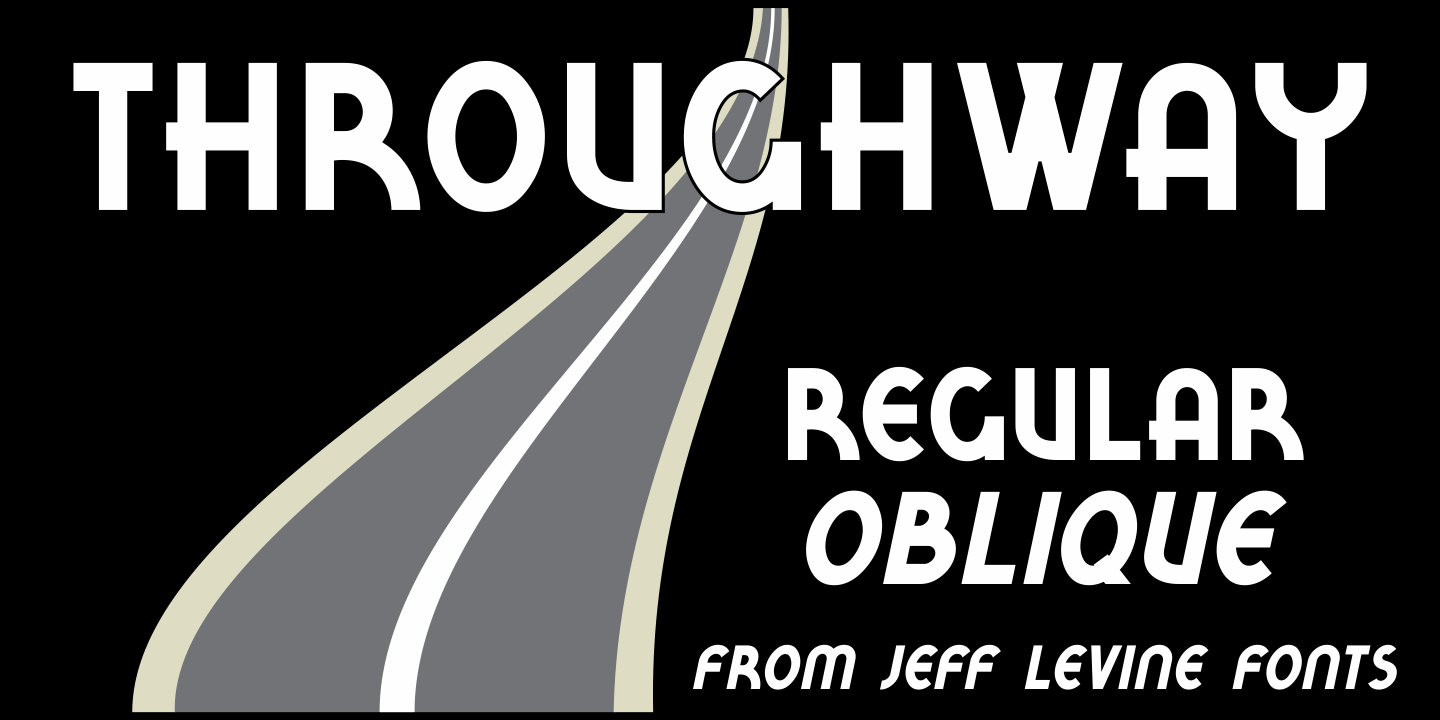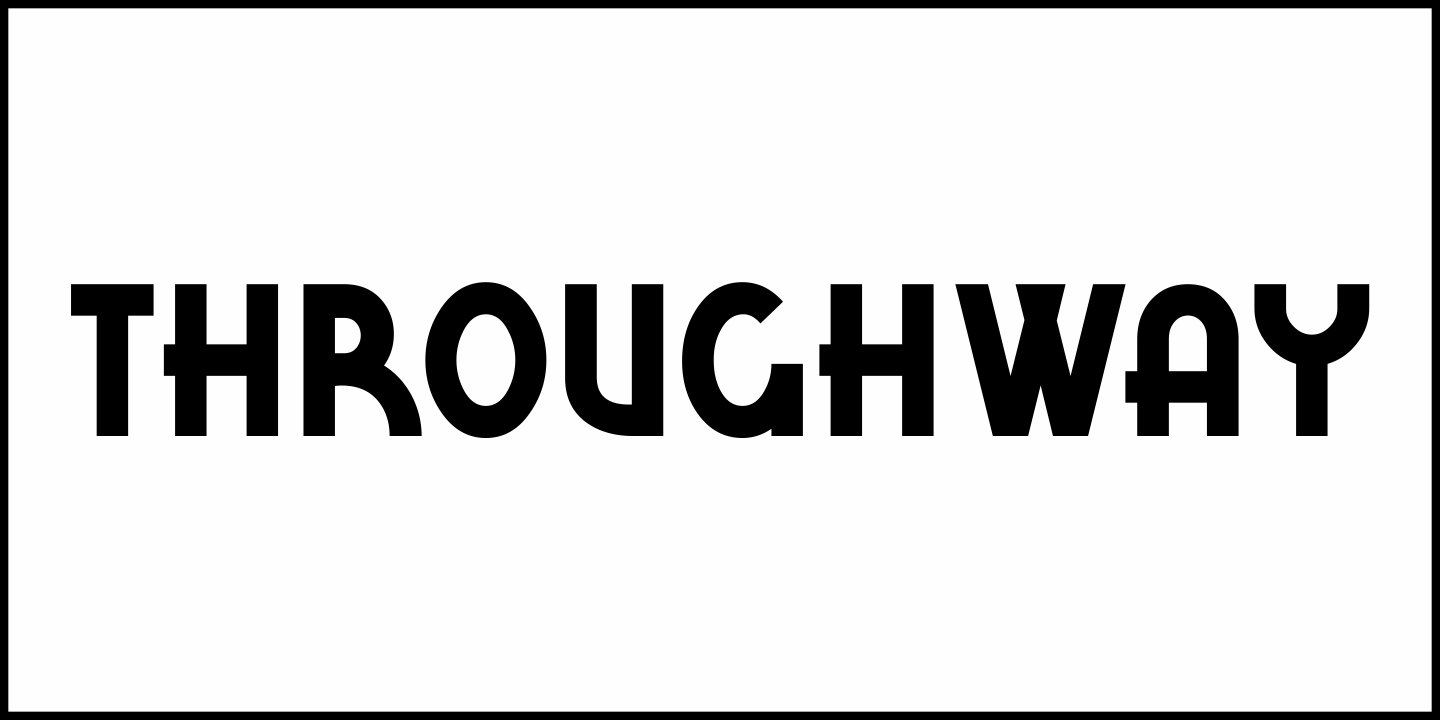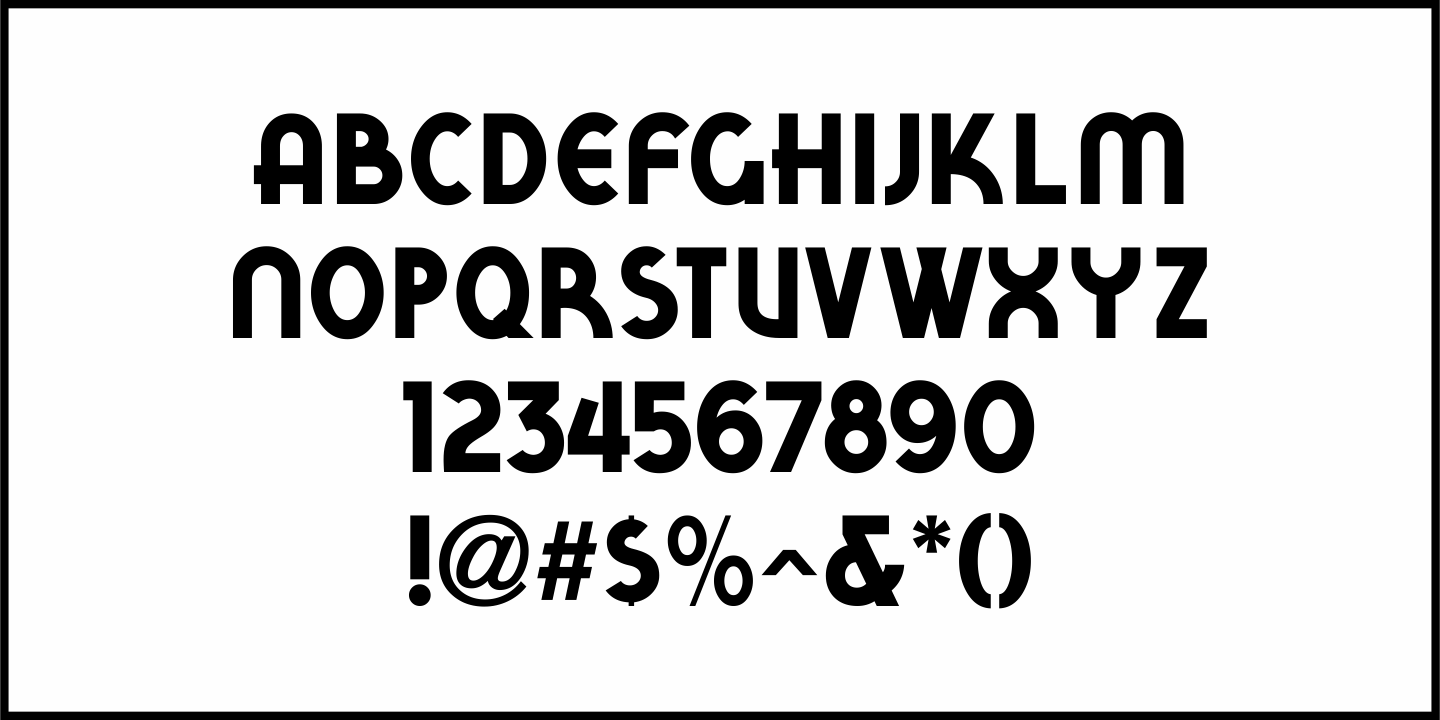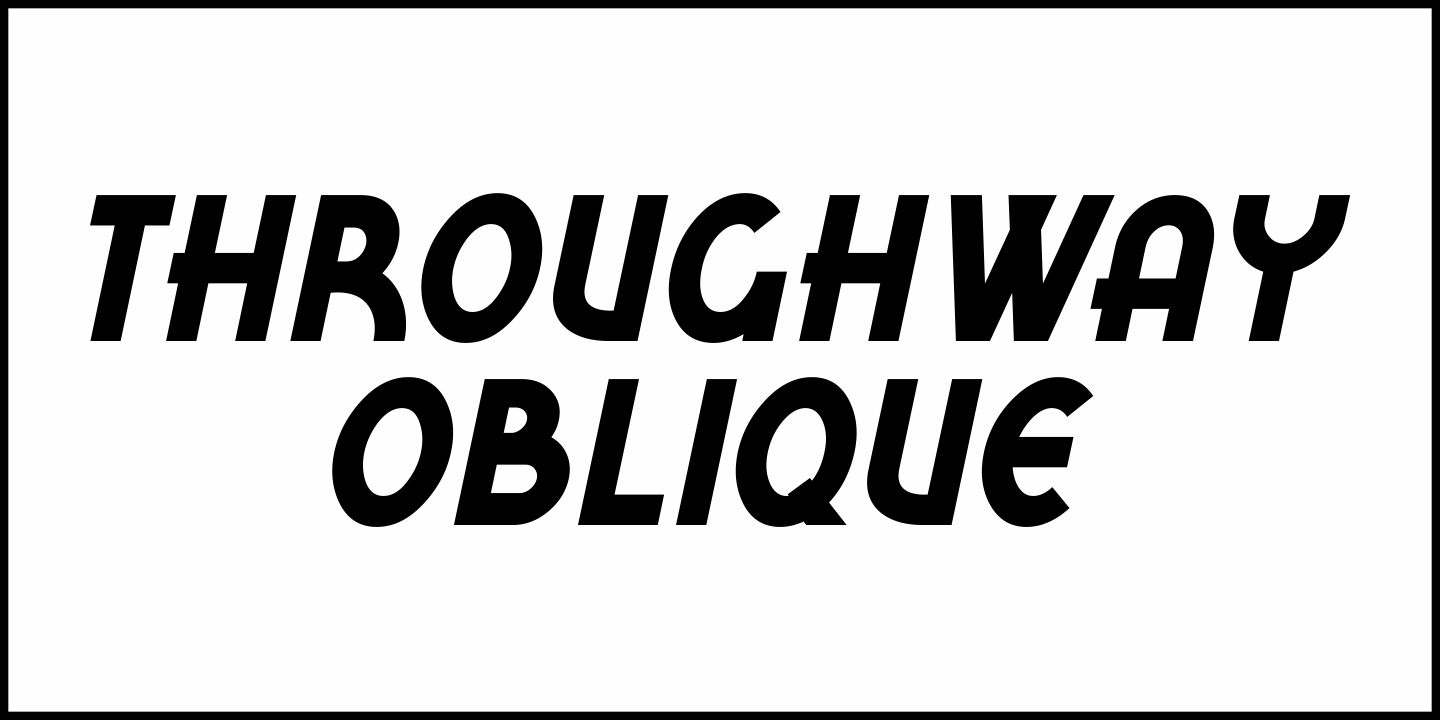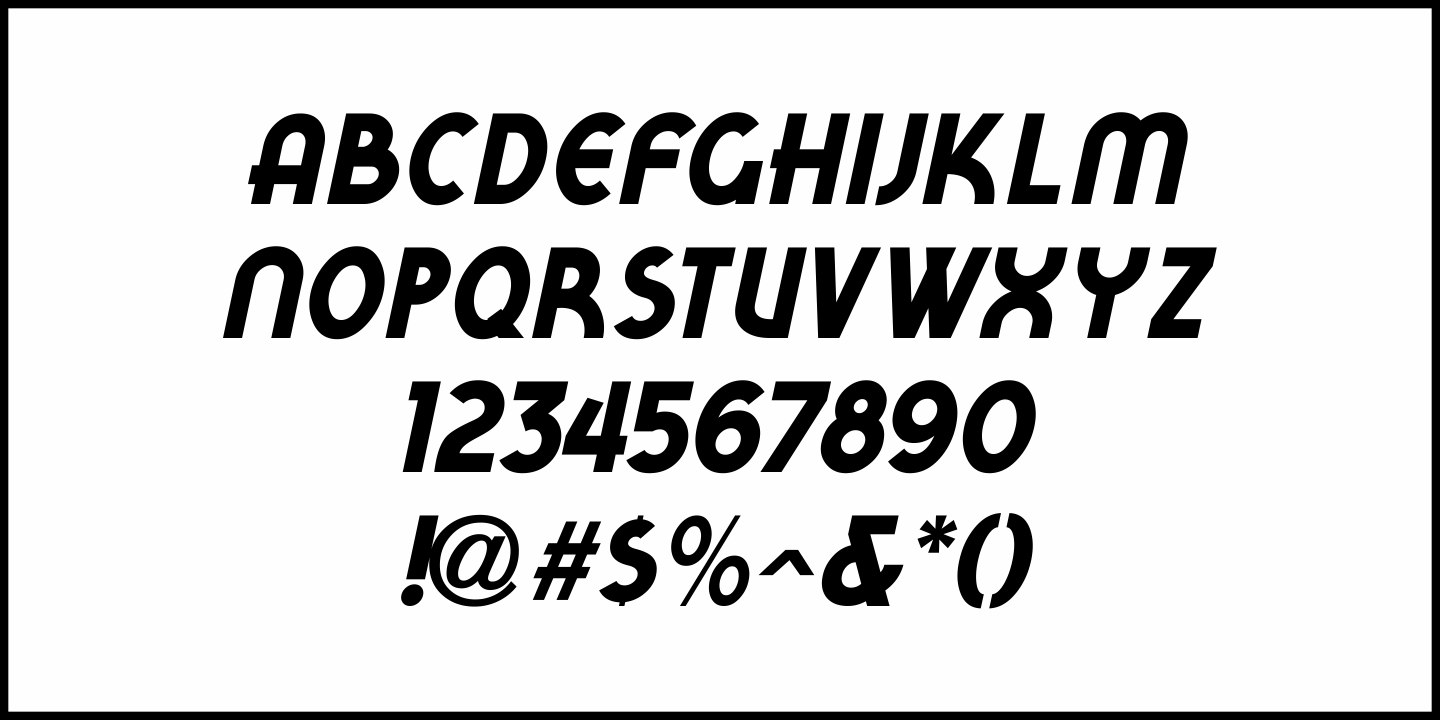
Throughway
From the pages of a small book entitled “A Portfolio of Alphabet Designs for Artists, Architects, Designers & Craftsmen” [Irene K. Ames, 1938] comes a bold Art Deco sans poster display face.
The digital version is called Throughway JNL, and is available in both regular and oblique versions.
[To note, throughway (or sometimes spelled thruway) is a popular term from the 1950s and 1960s for a major road or highway.]